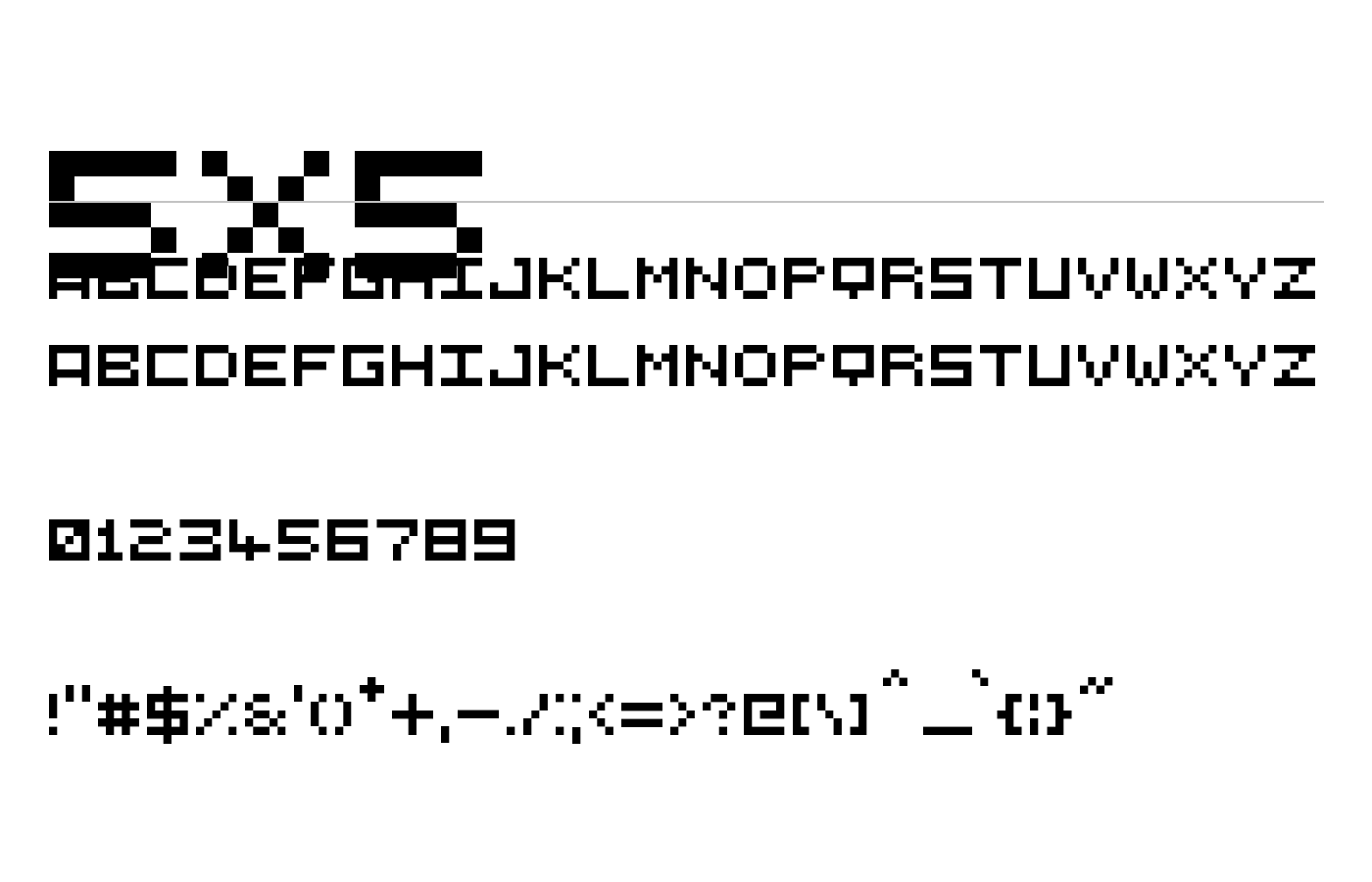
5×5 Font is a pixelated sans serif typeface with a retro digital aesthetic, characterized by its blocky, monospaced letterforms formed on a strict 5x5 grid. It features uniform stroke weight and sharp, geometric edges that evoke the look of early computer screens and video games, making it ideal for creating nostalgic, tech-inspired designs. This font works best for headlines, logos, and digital-themed projects where a bold, vintage electronic vibe is desired.